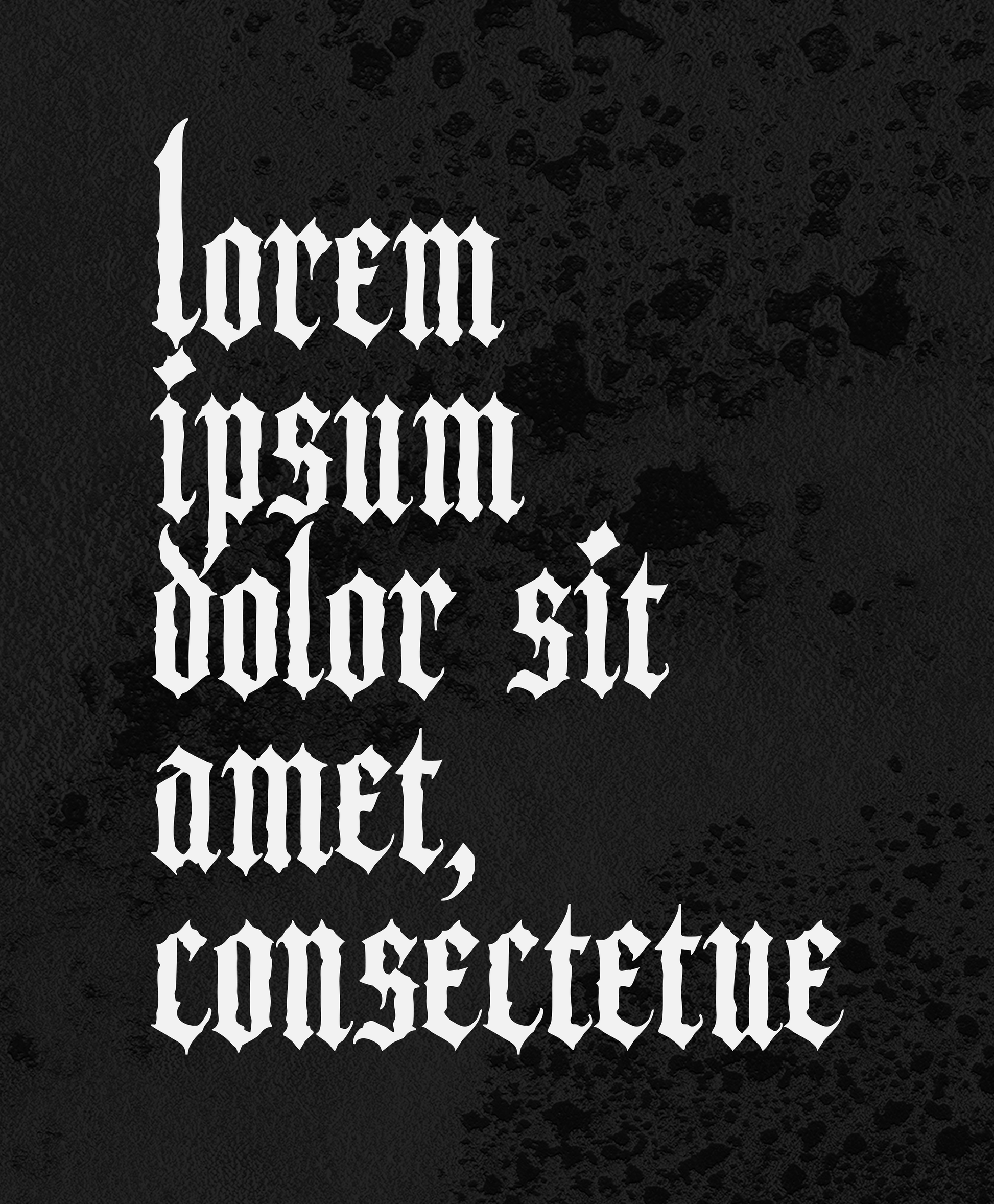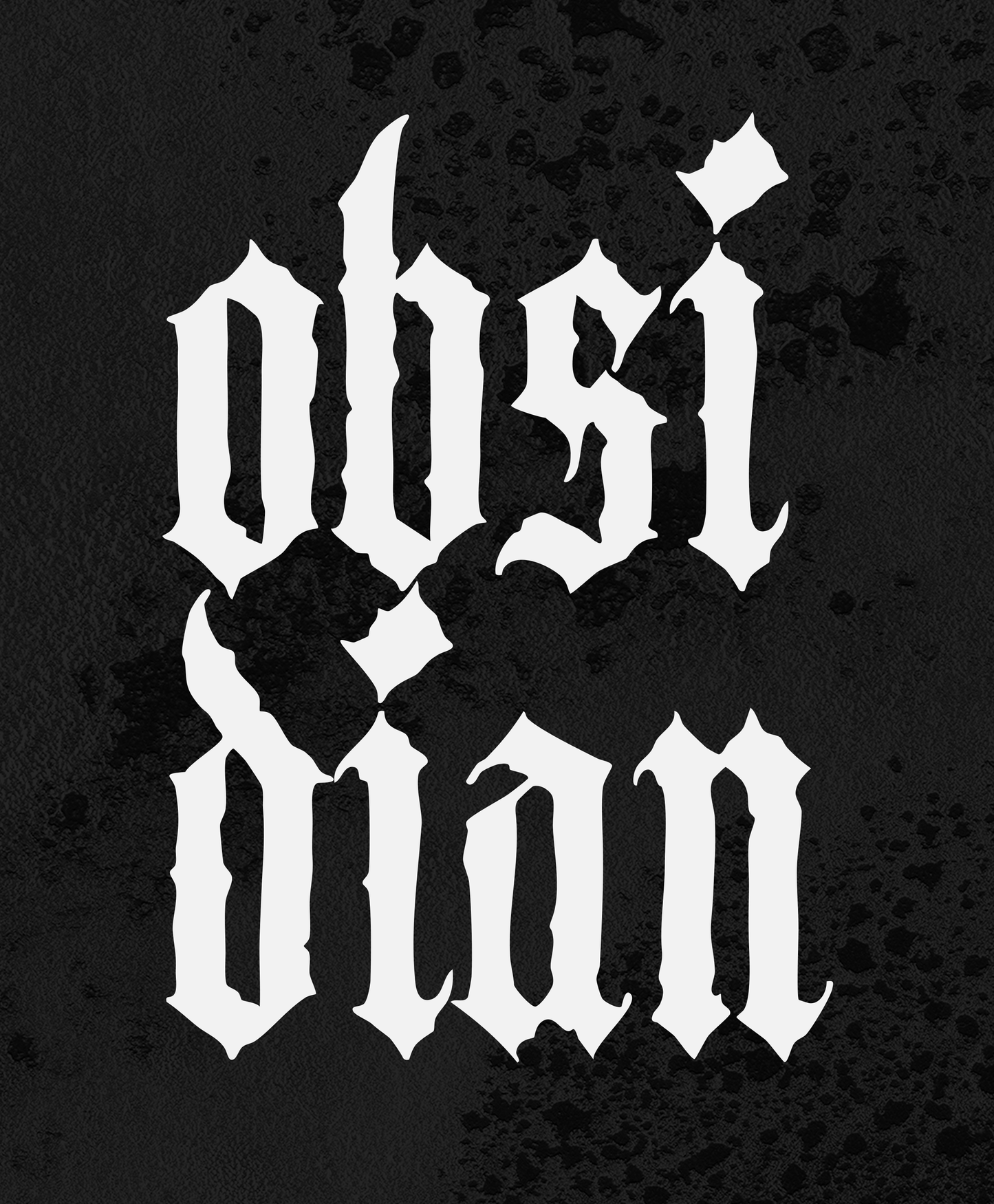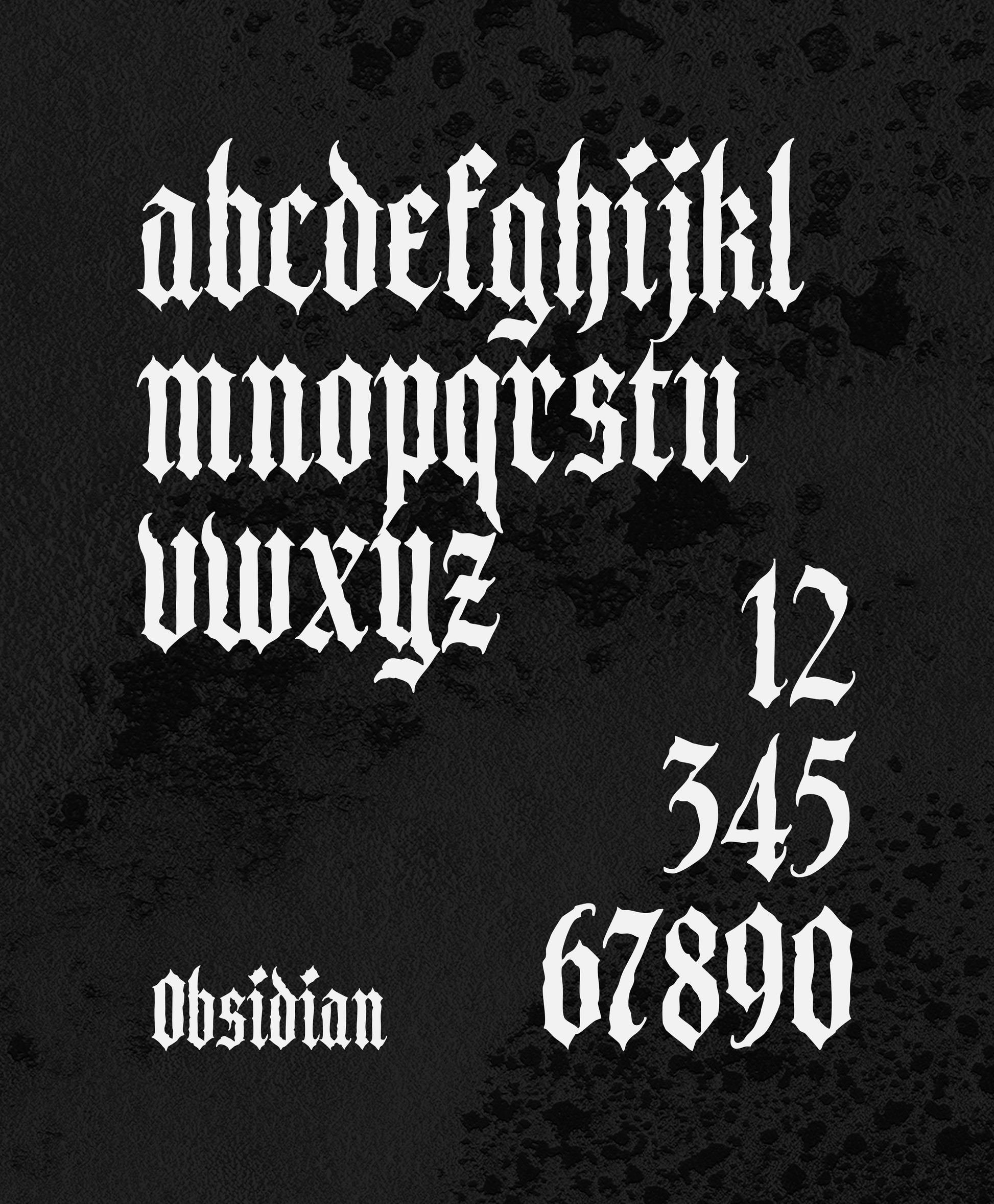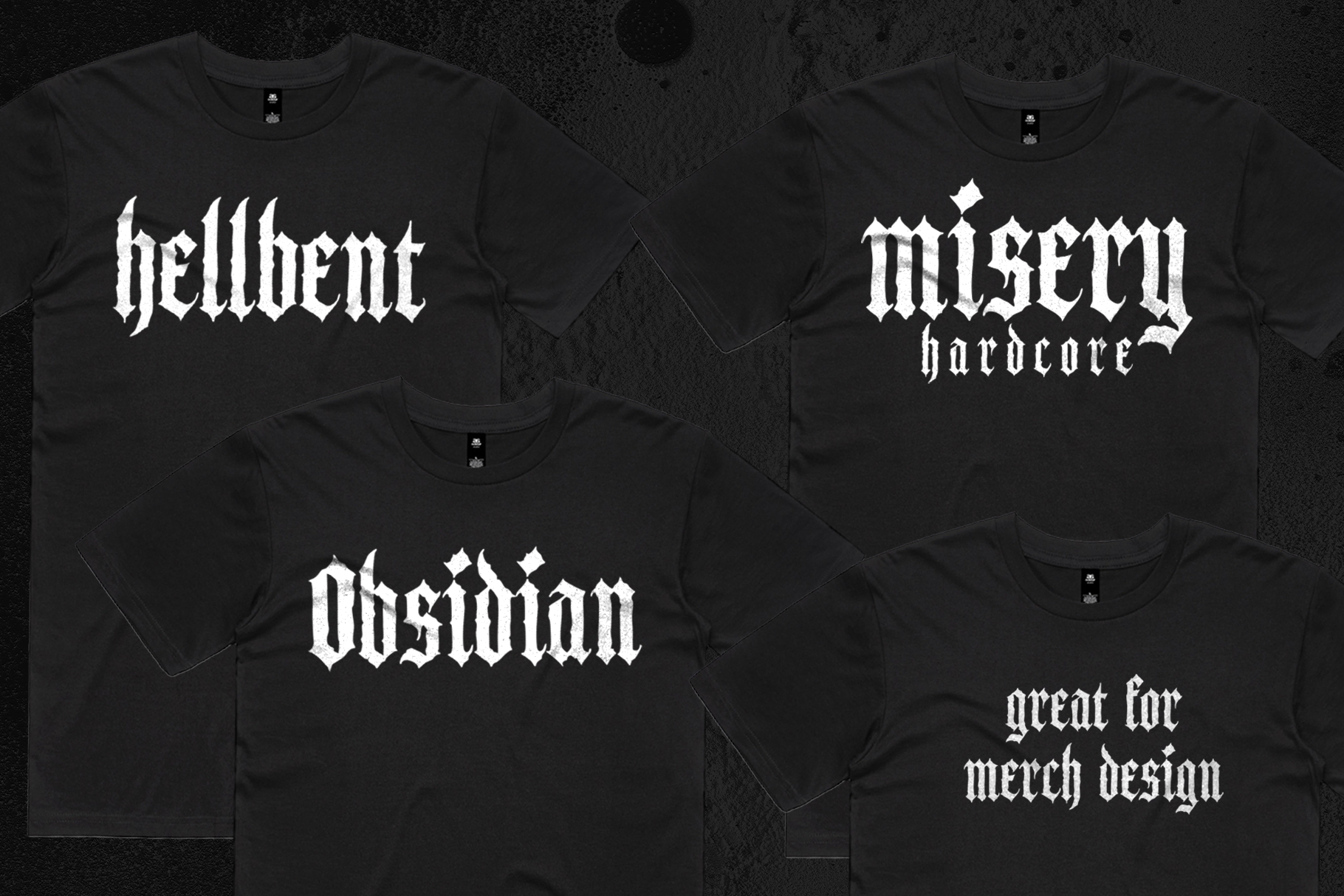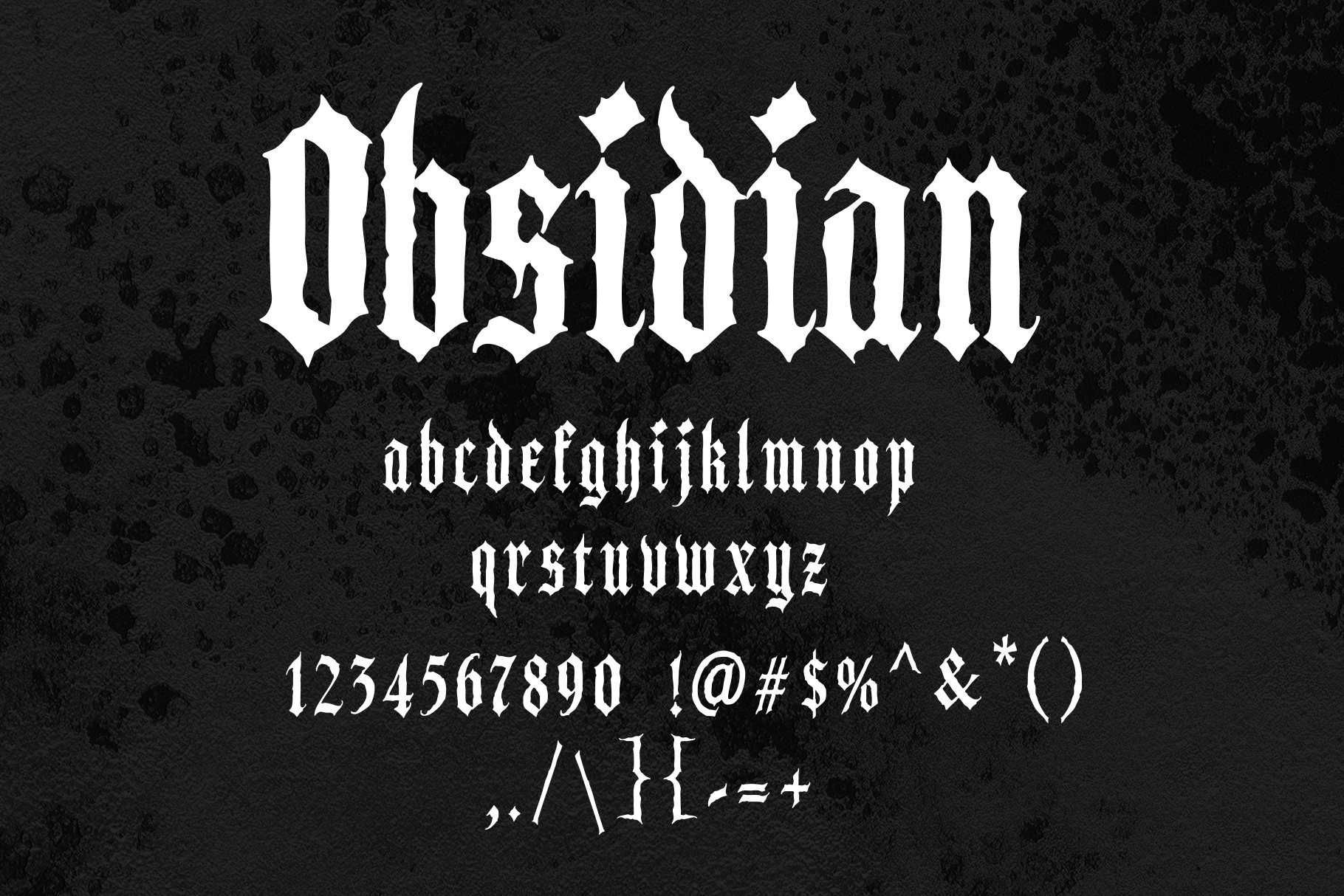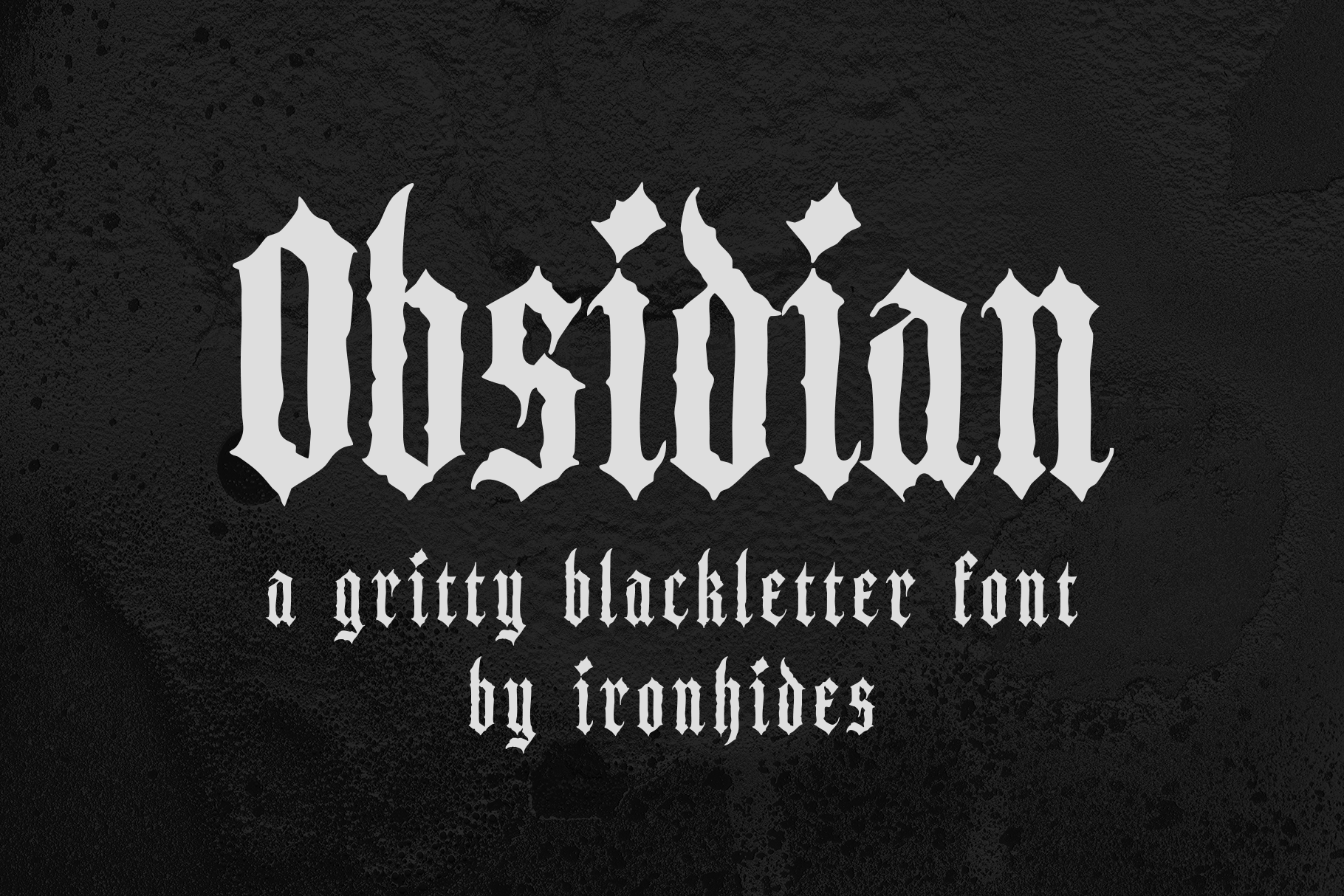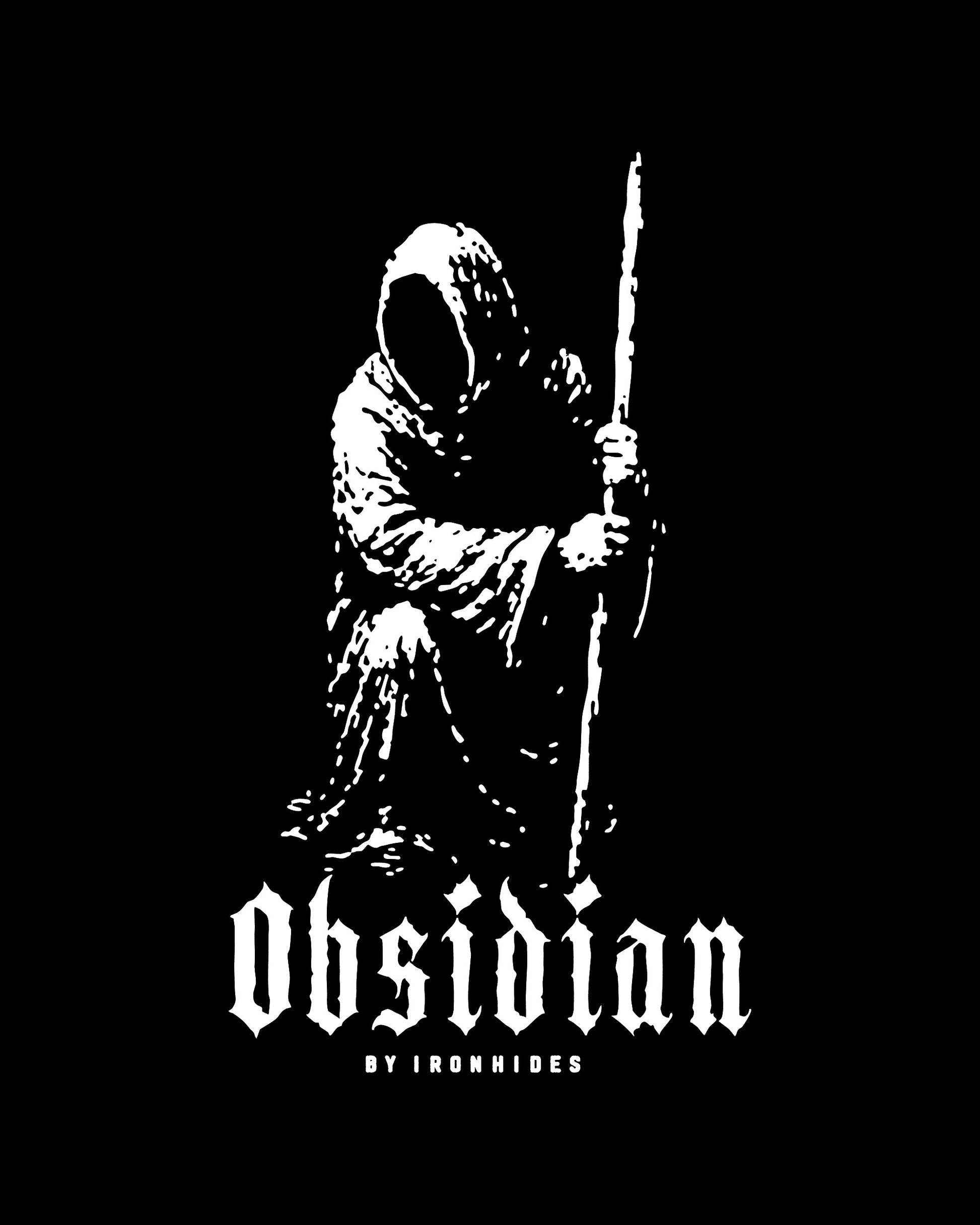
OBSIDIAN GOTHIC FONT
Obsidian - A Gritty Blackletter Font
Obsidian is a relentless blackletter font inspired by the raw fury of heavy metal and ancient darkness. Its bold, jagged forms and spiked, textured edges bleed with unapologetic grit, making every letter a weapon of visual impact. Built for designers who crave intensity, this typeface is your go-to for band logos, tattoo art, and gothic branding that demands to be seen.
Heavy metal merch and posters Tattoo art and streetwear branding Grunge-inspired logos and packaging Horror and gothic-themed designs Why Choose Obsidian?
Inspired by the raw power of heavy metal and the dark beauty of medieval blackletter, Obsidian isn’t just a font—it’s a statement. Its bold forms and rugged texture give your designs a visceral, hand-crafted feel, like they’ve been carved out of stone and blood.
Whether you’re designing for a band, a subculture brand, or a gritty editorial piece, Obsidian will make your work stand out with unrelenting force.